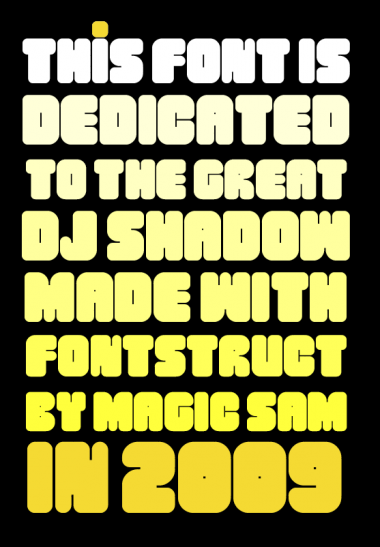
• Don´t trust the preview, take a look at the Example! Dedicated to the marvellous DJ Shadow. This is another contemporary Display-Font I created using the Brick-Size-Filters (adjusted at 1.75). It´s not a 3D-Font, or a puzzle or a construction plan, but I think it´s a very consistent typeface:-) Hope you like it, please write a comment if you have any suggestions. More letters to come.
Cool! B looks a bit weird to me though... But it's probably the only consistent solution with the 1.75 filter.
And non-3D, non-puzzle and non-construction-plan fonts are still very welcome! They're much more usable in the end... I have to tell myself this over and over again when I'm starting to feel uncreative and unimaginative when working on a "standard" fontstruction. :P
@ Sam Nice usability.
@ SHASTA. Ha Ha, I can relate.
Very nice. Smart use of the filter.
@shasta: You can't be serious after releasing Punched Out and Escheresk.
nice thick font with lots of character and energy. i admire you guys who work with these in-between filter settings - especially when the results look so smooth. sample is very nice too. never fear - the pendulum will swing back the other way or in some other direction and the current craze will be for something else :)
Great job, Sam! 10 points.
Congratulations! FontStruct Staff have deemed your FontStruction worthy of special mention. “Shadow” is now a Top Pick.
Good clean work on the 1.75 scale. It's always good to put in a sample to show off its true colors. Props to DJ Shadow too.